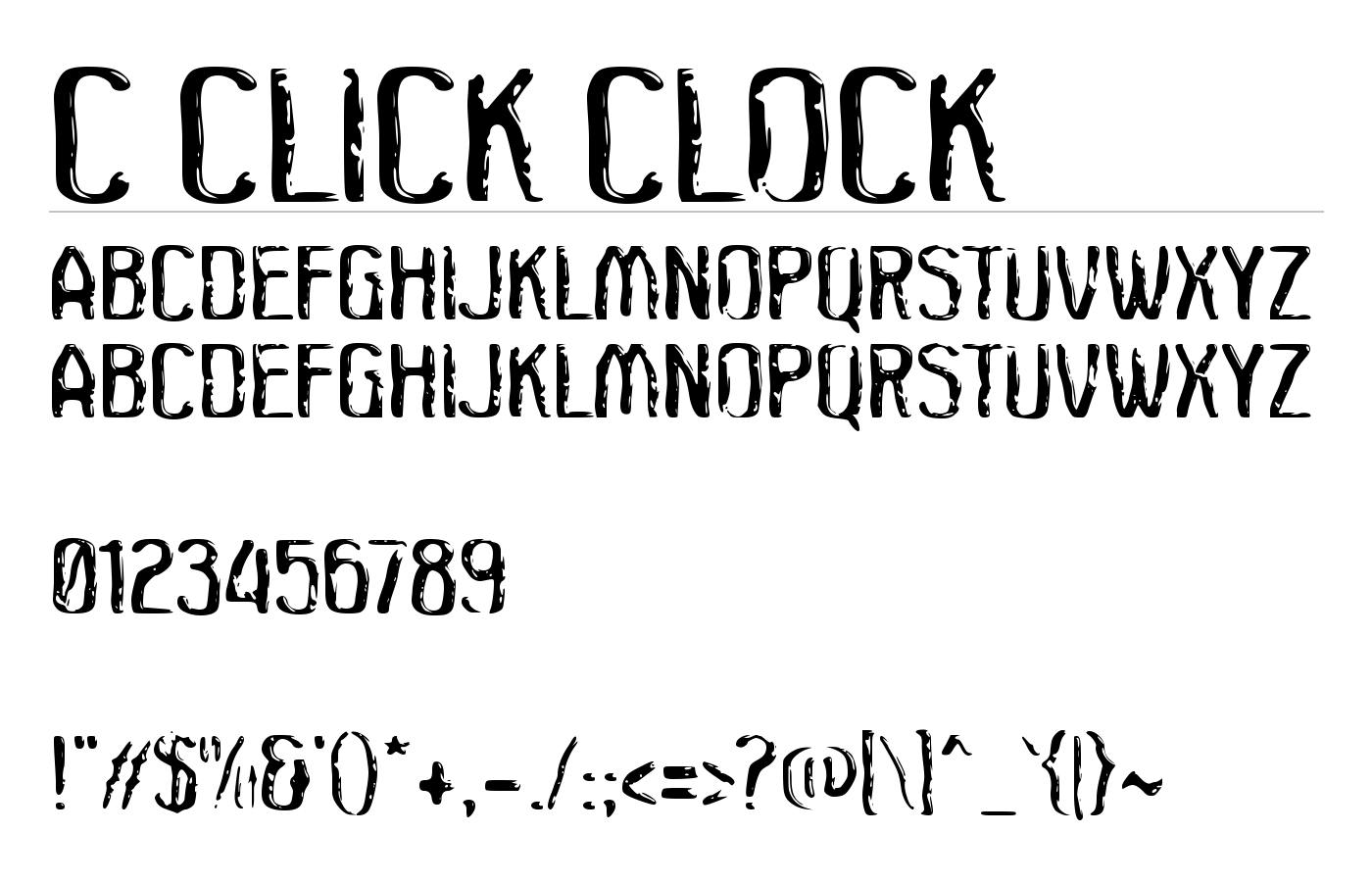
Click Clock is a tall, condensed sans serif font with a distressed, textured appearance that gives it a hand-crafted, vintage vibe. Its uneven edges and rough interior details create a playful yet edgy personality, making it ideal for creative headlines, posters, and branding that seeks to stand out with a bold, retro-inspired look. This font works well in projects needing character and a sense of worn authenticity while maintaining strong readability.
c Click Clock Font